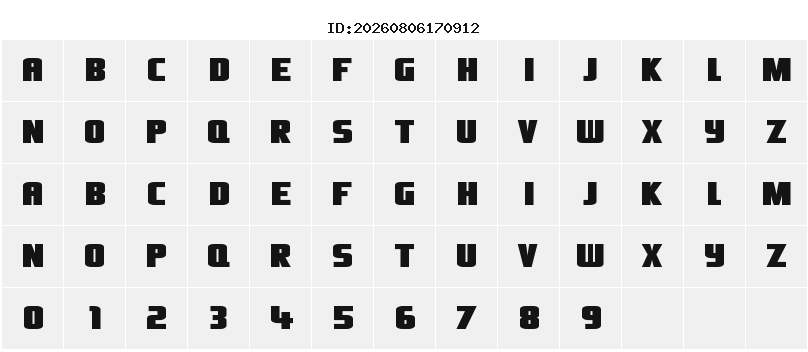
• Font Name: Oliver's Barney
• Designer: Ray Larabie
About Oliver's Barney.ttf
Oliver's Barney.ttf is a modern, elegant sans-serif font designed for ultimate readability and visual harmony. Perfect for branding, headlines, web design, and print materials.